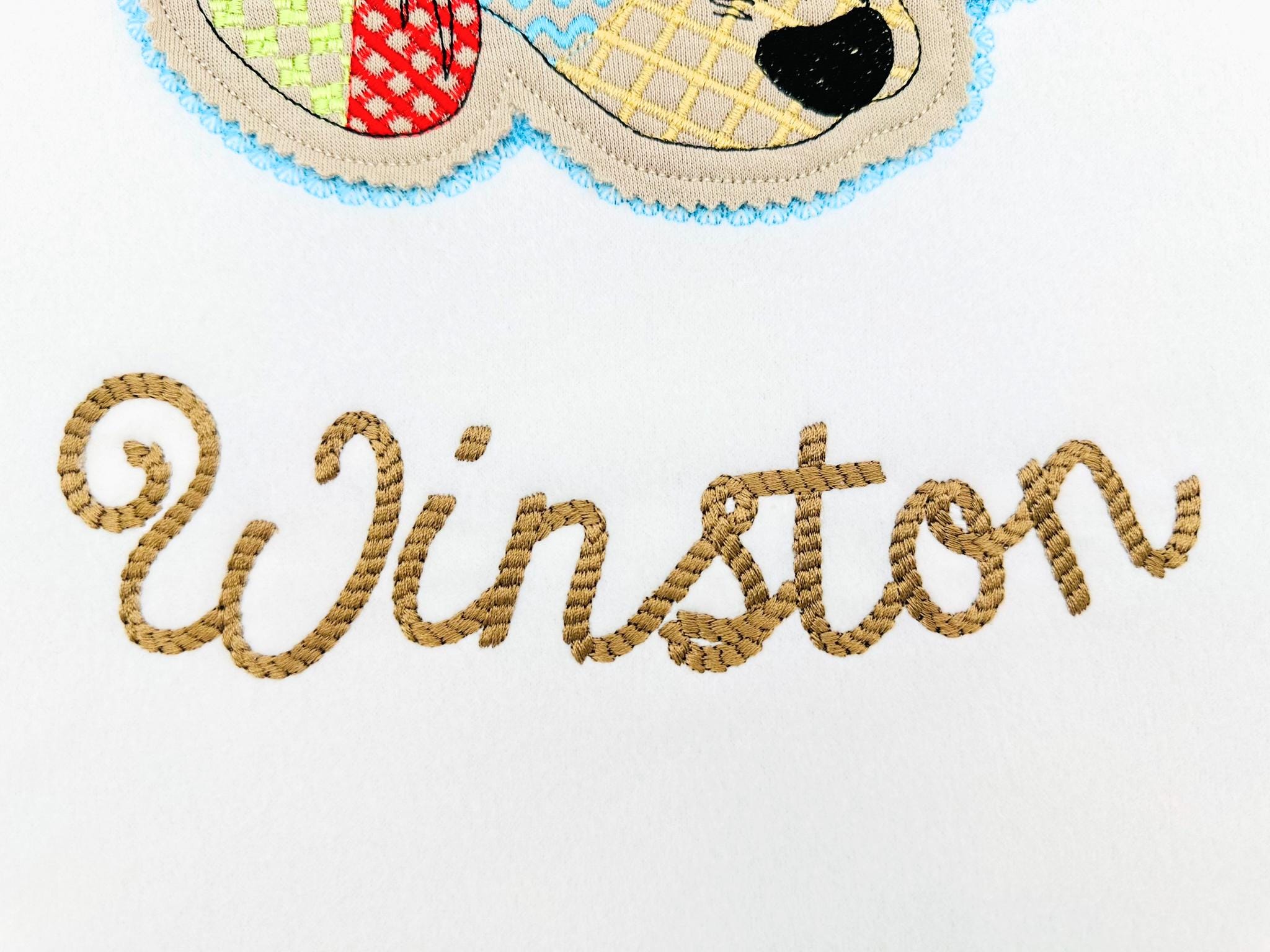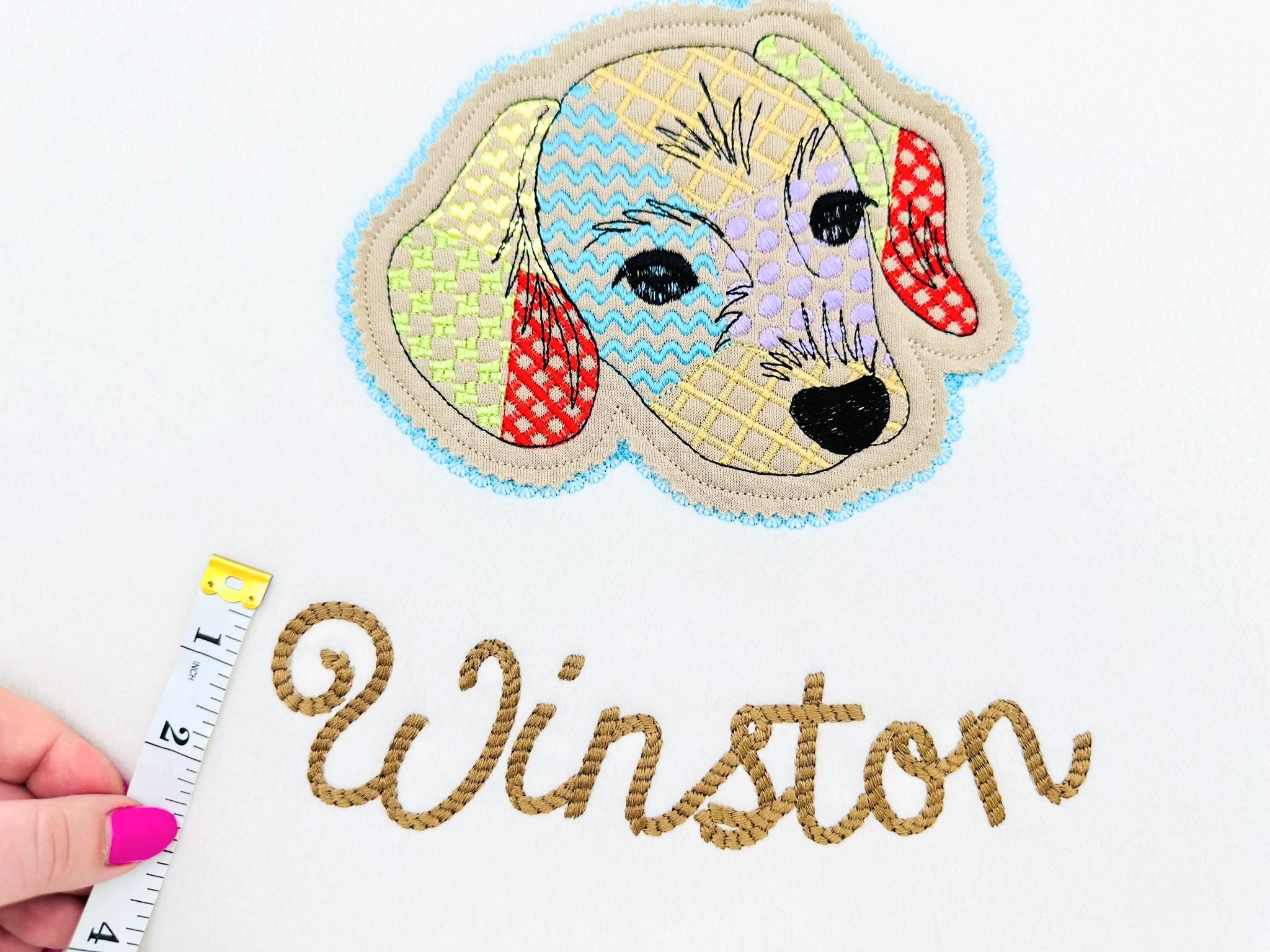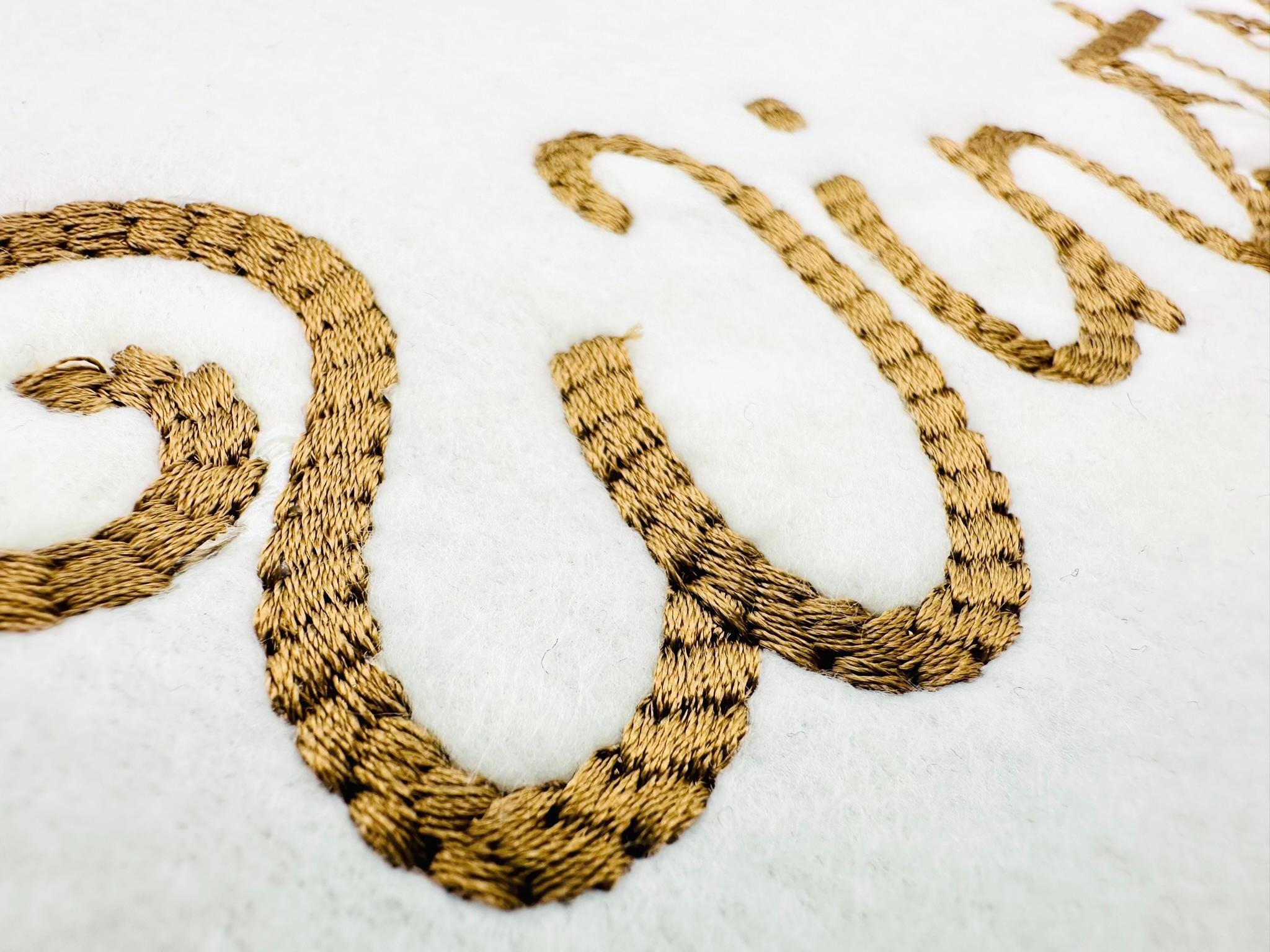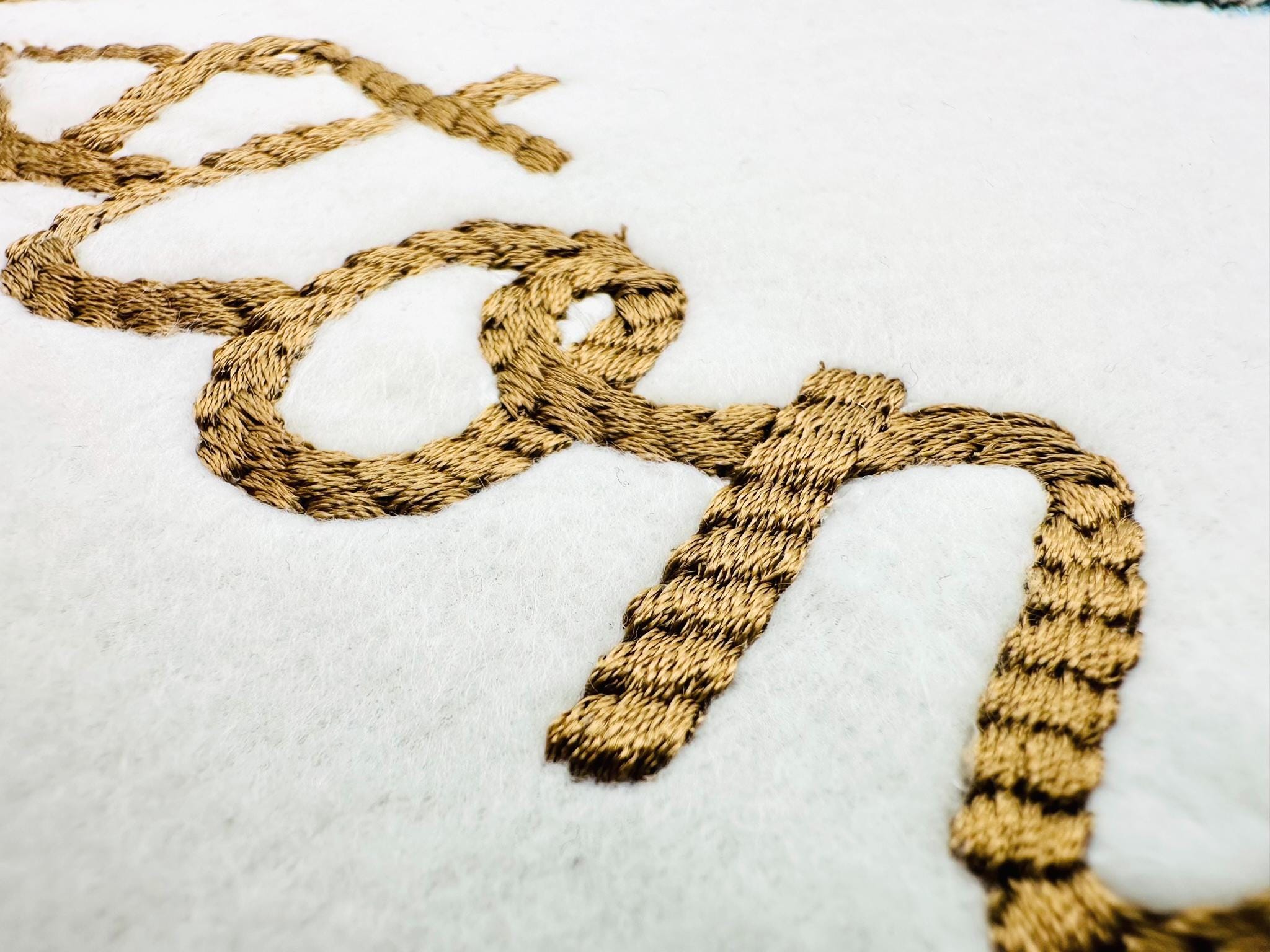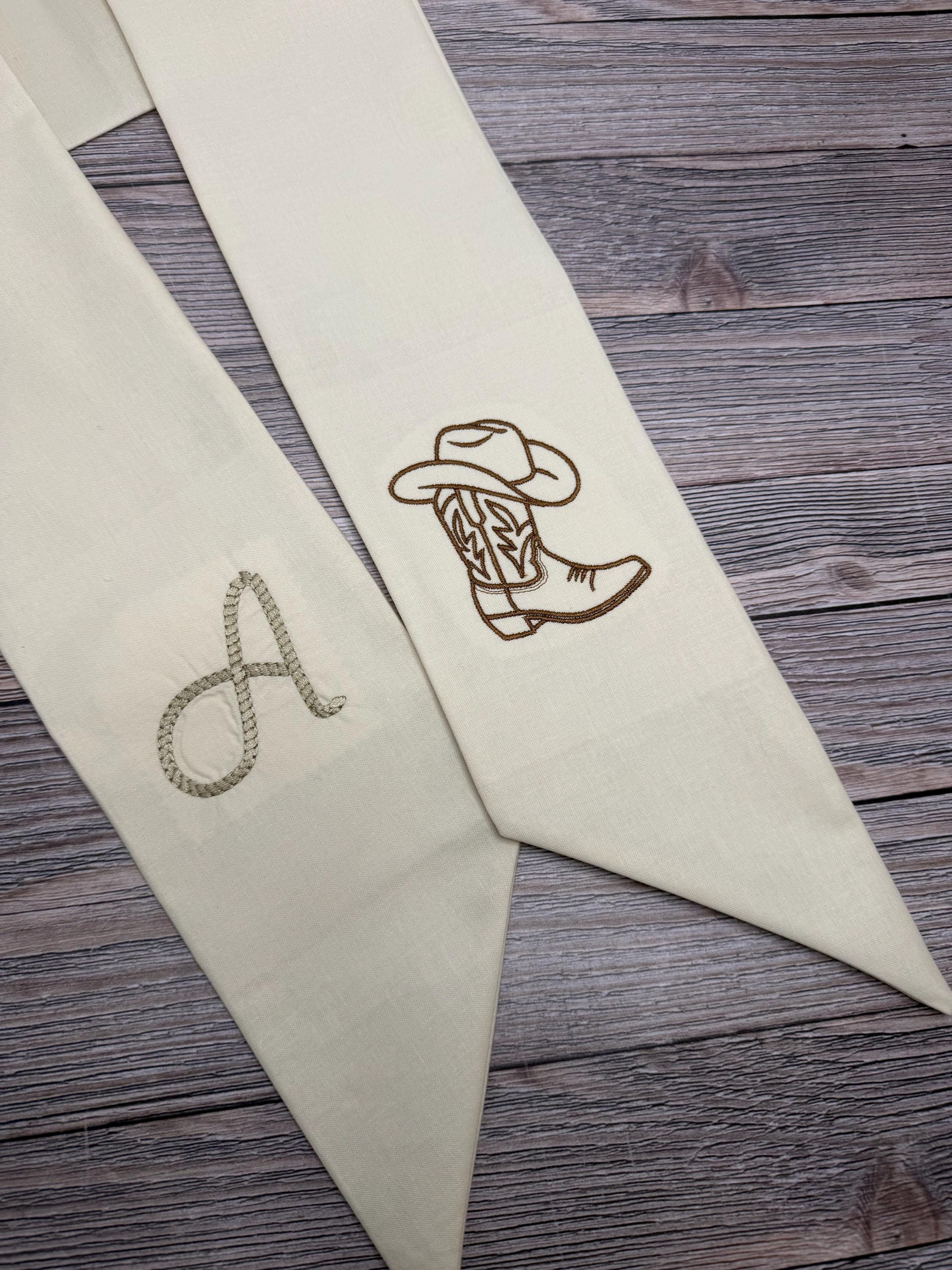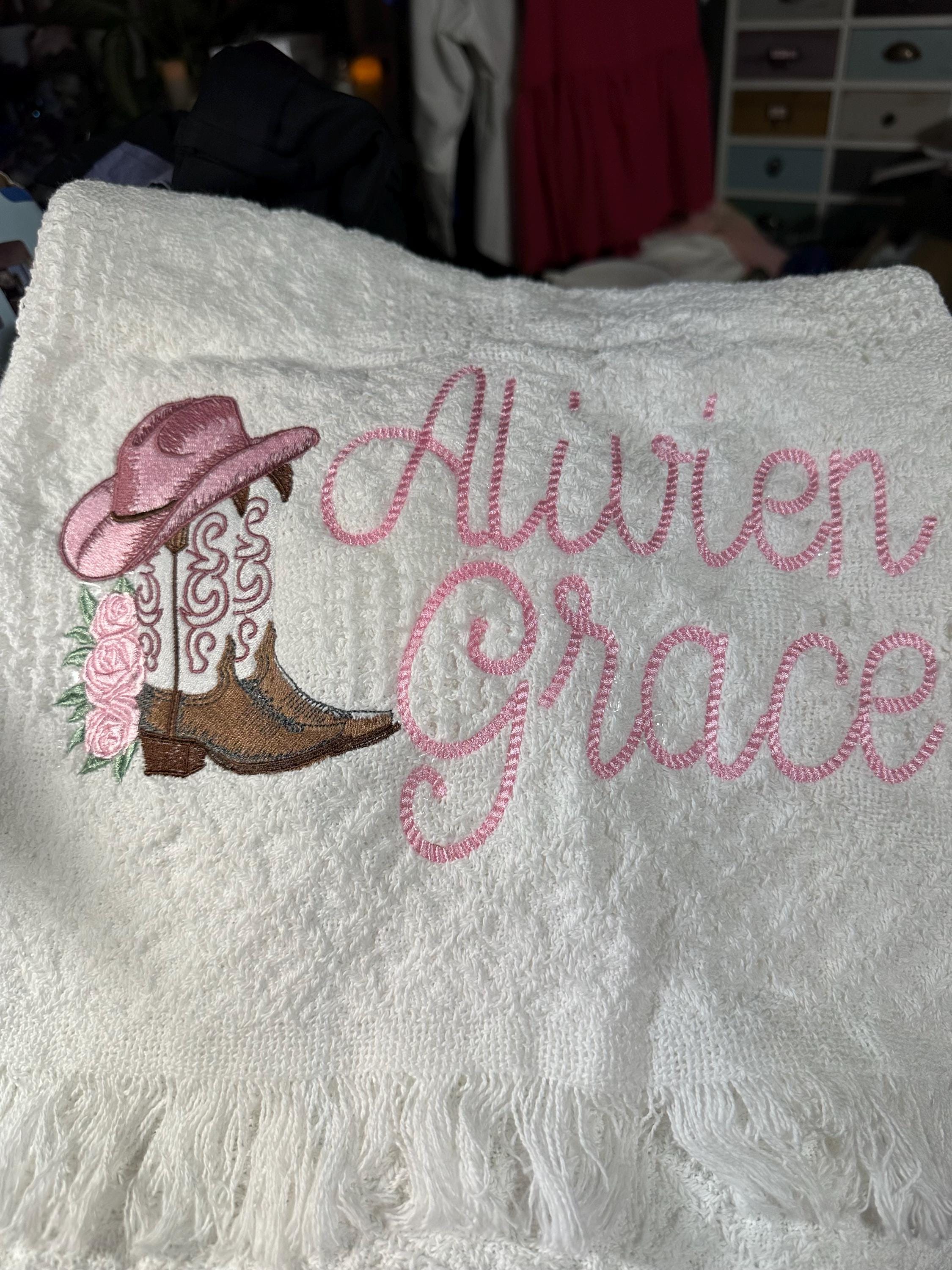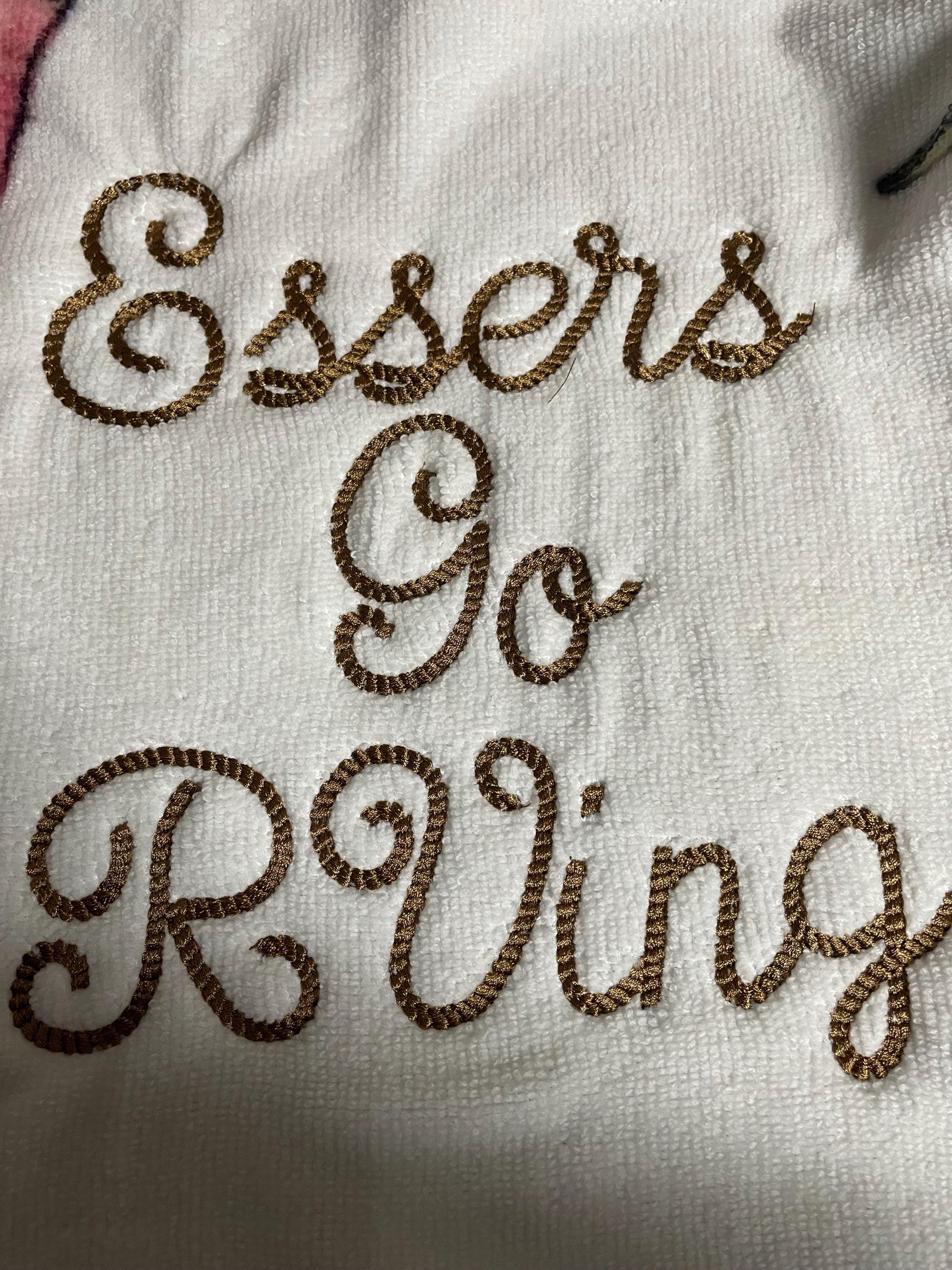
Rope FONT Embroidery Cowboy Alphabet Machine Embroidery Designs with Cord Letters Western Rodeo monogram rope stitch sizes 1 up to 3in, BX
Entire alphabet uppercase and lowercase letters, and numbers.